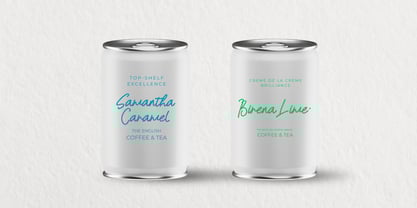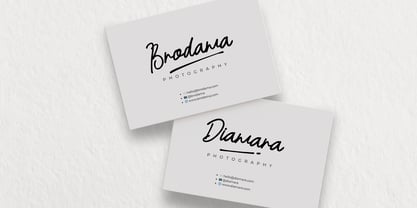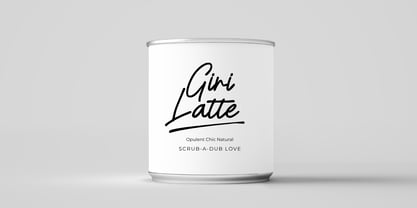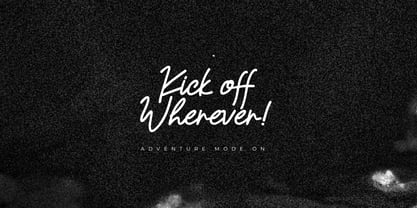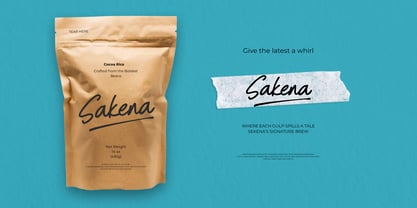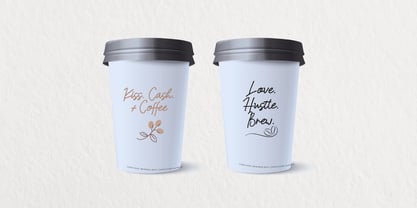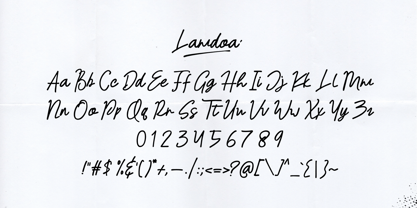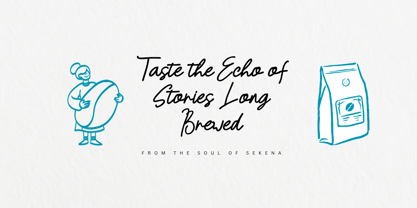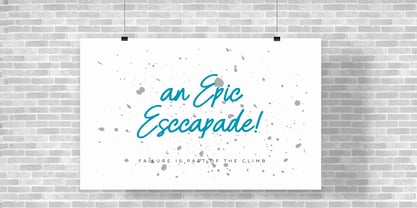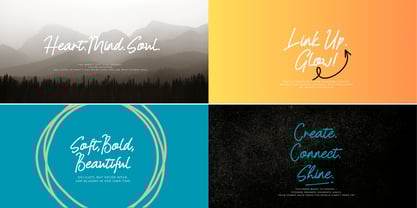
Lamdoa
The Lamdoa Font Family was designed by Yusliana M Isa and published by Gian Studio. Lamdoa contains 1 styles. More about this family
Lamdoa! – A Bold and Spirited Handwritten Script
Say hello to Lamdoa! — a bold and lively handwritten script that speaks with confidence.
Crafted with energy and personality, Lamdoa! brings a spontaneous rhythm to your words. With its carefree strokes and expressive character, this font adds a fun, modern edge to your creative projects.
Perfect for bold logos, standout packaging, stylish quotes, apparel, social media graphics, and more — Lamdoa! is all about making your message feel real, fresh, and unforgettable.
The underlined style and exclamation point give it a punch of attitude — making it ideal for brands that want to stand out with a playful twist.
Lamdoa! is perfect for:
Branding • Quotes • Packaging • Posters • Apparel • Invitations • Instagram Posts • & more!